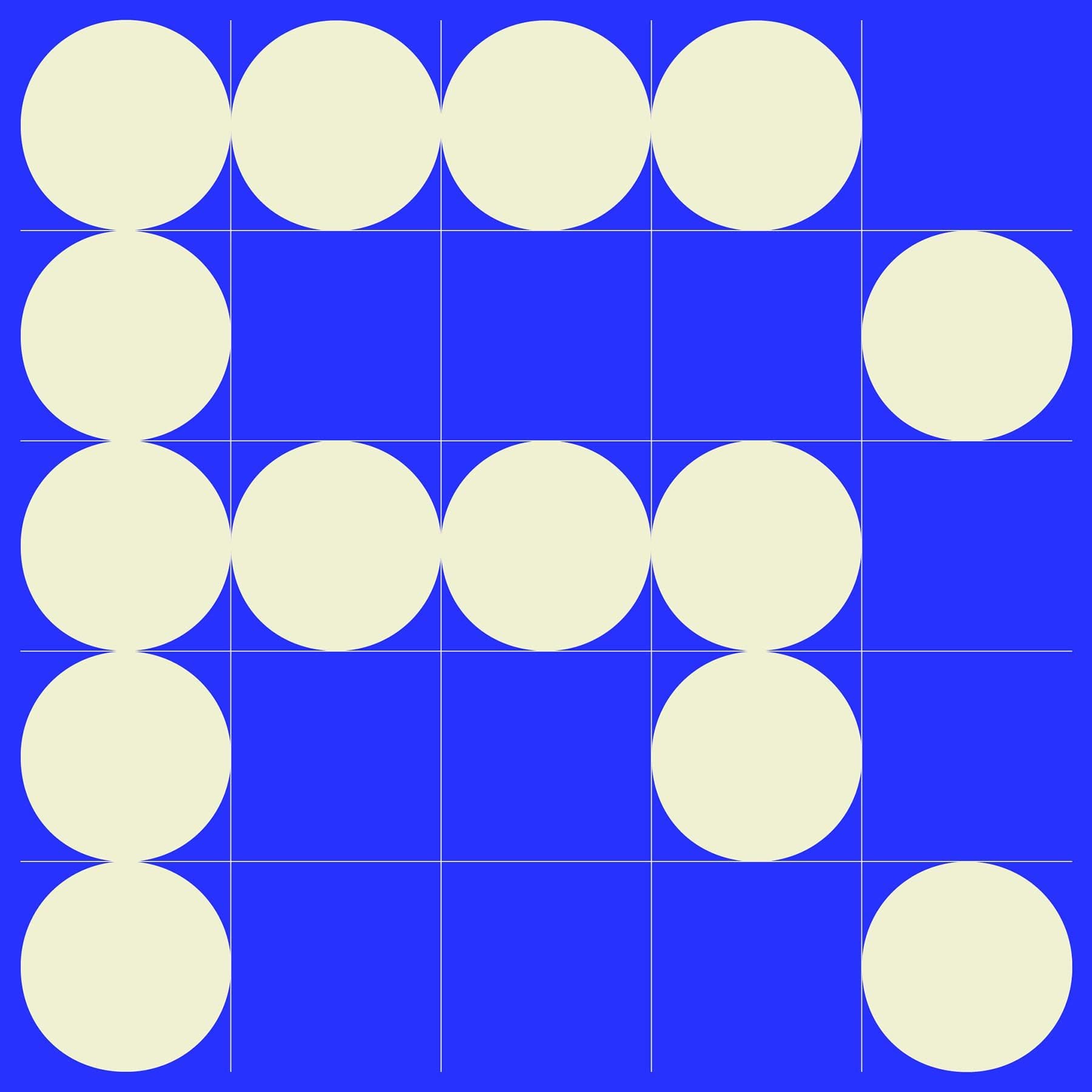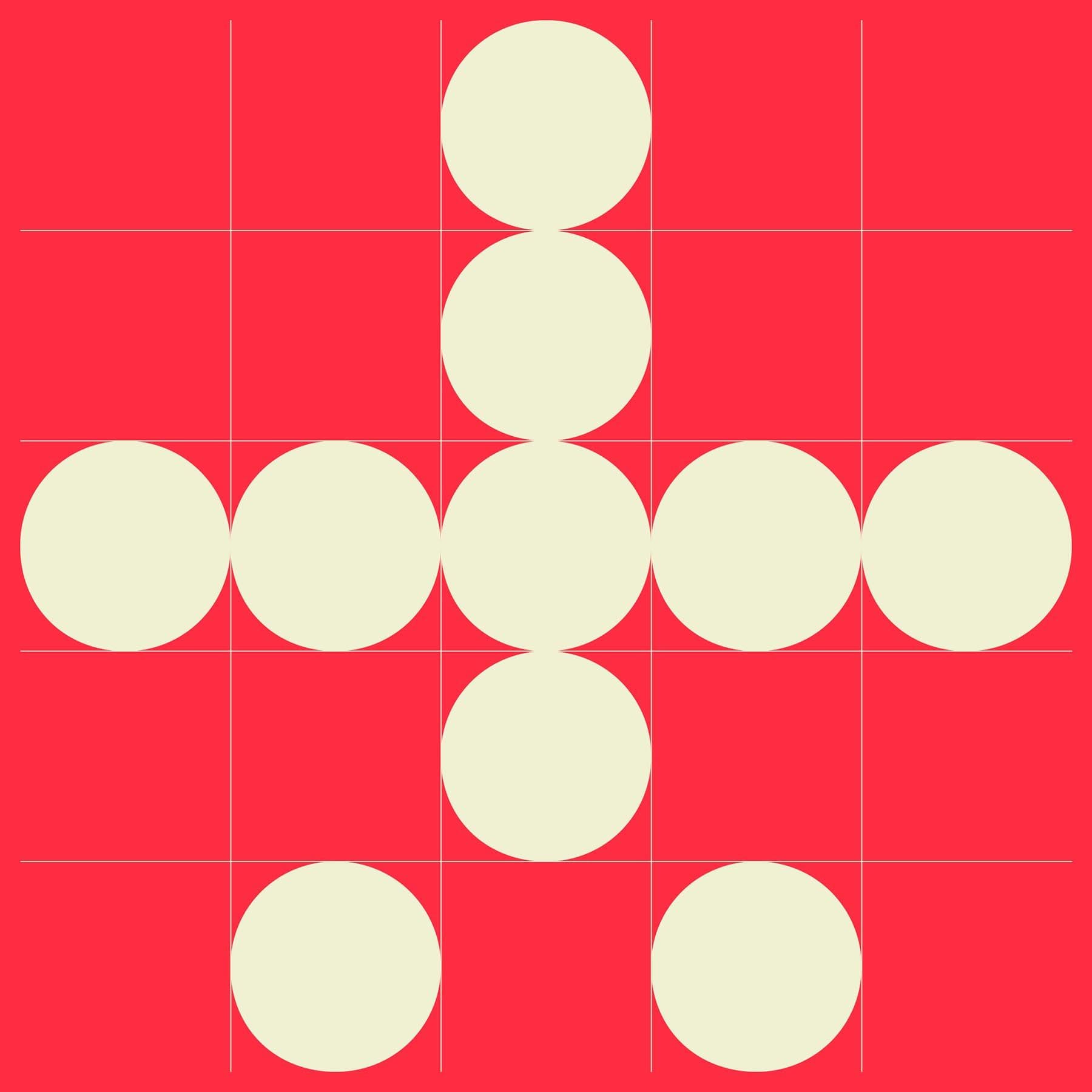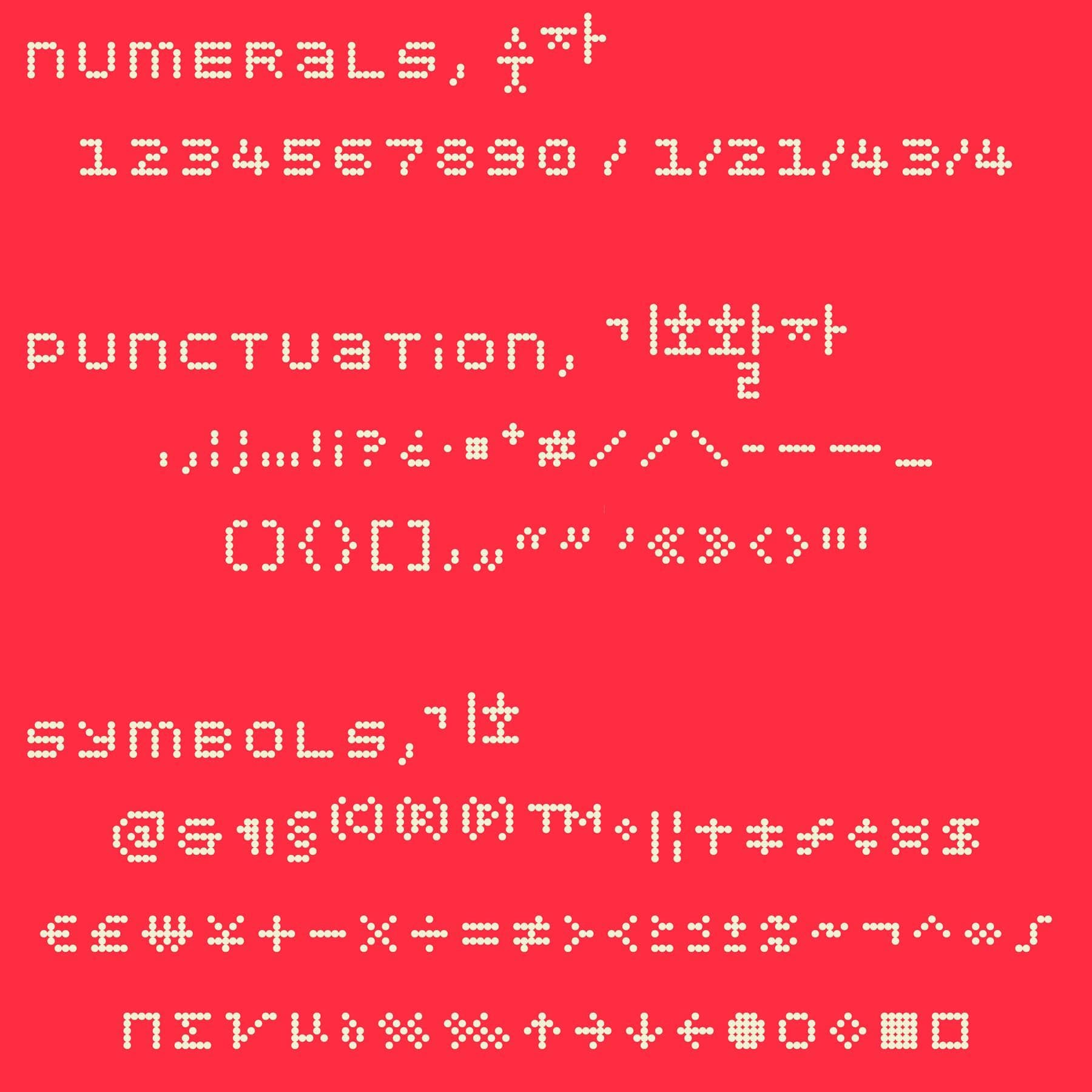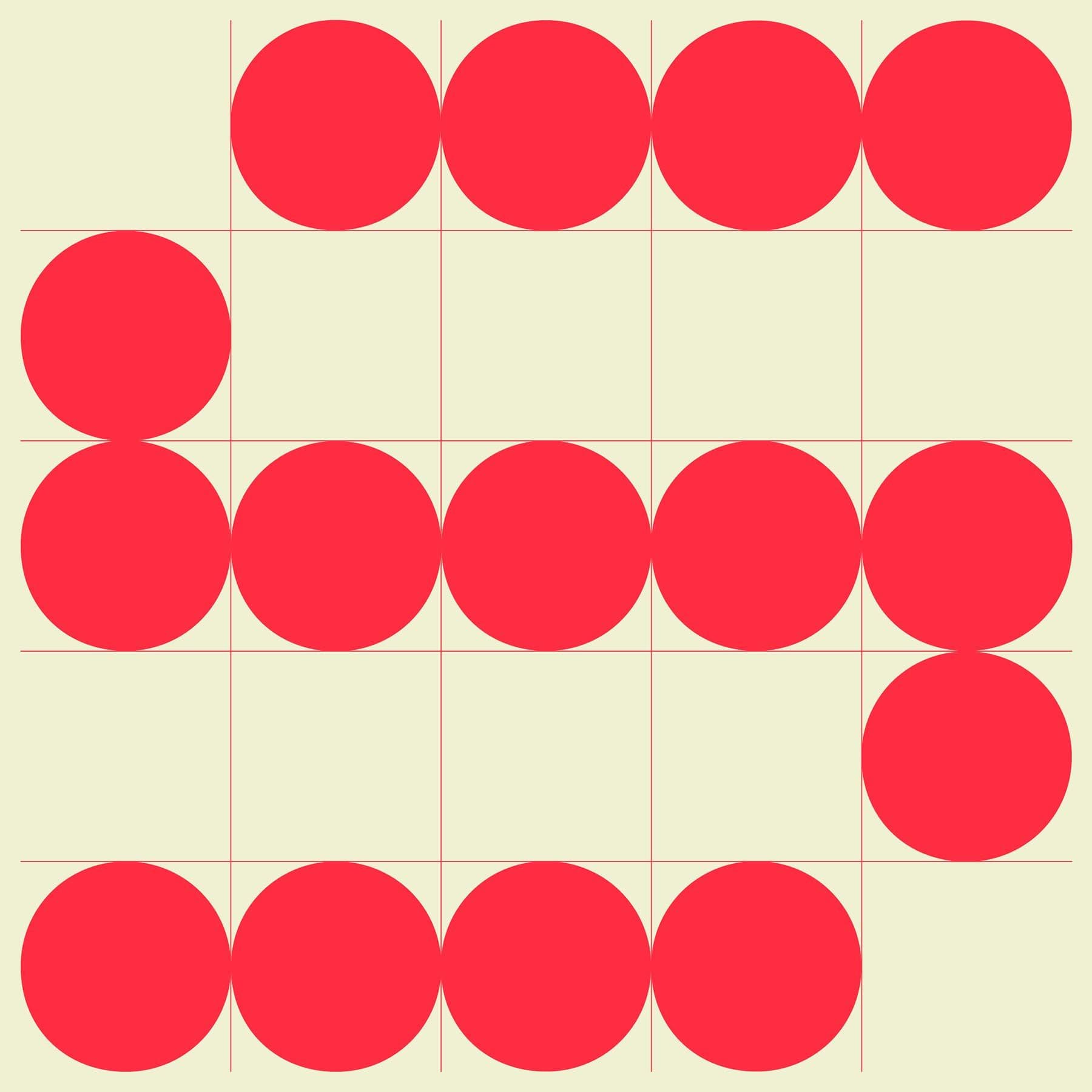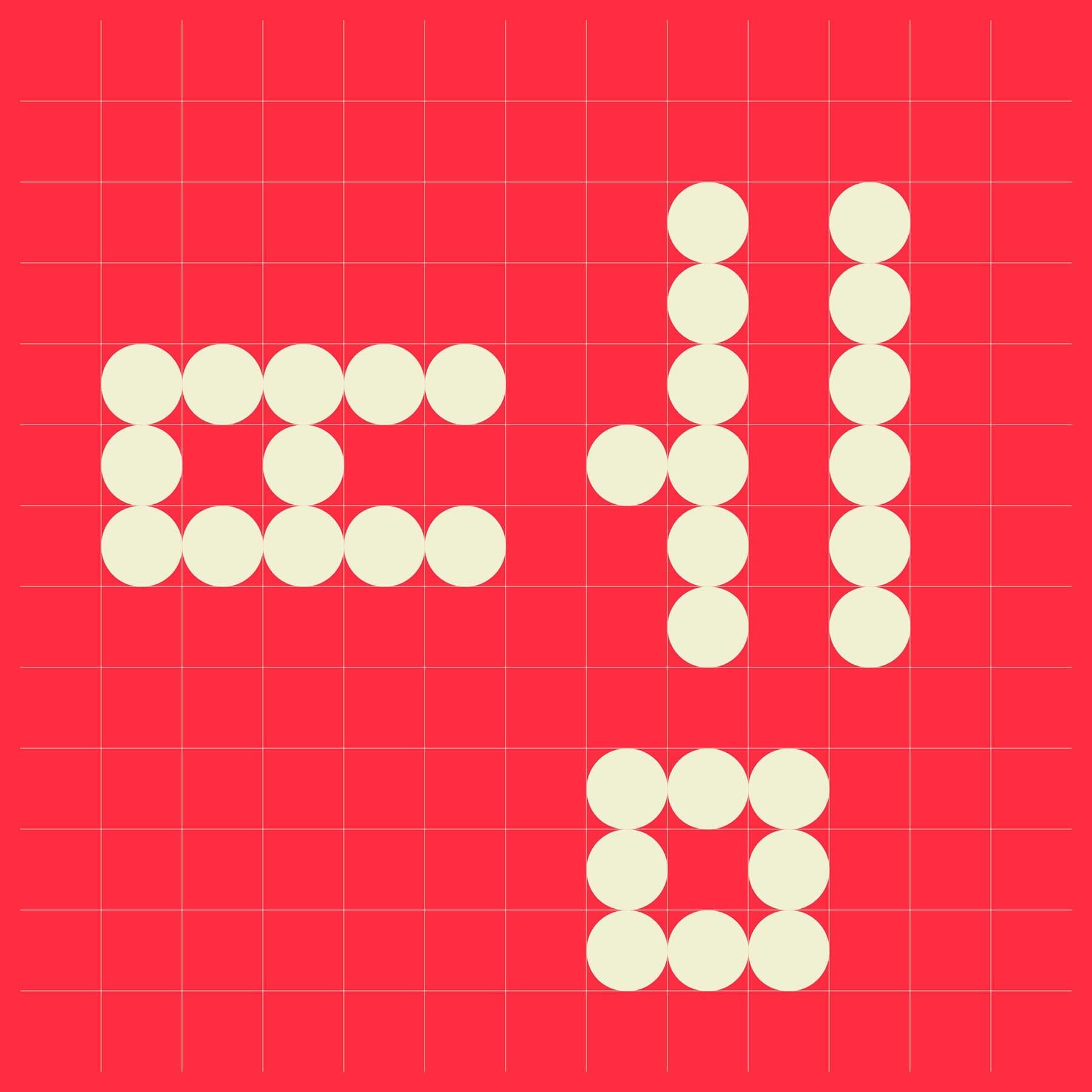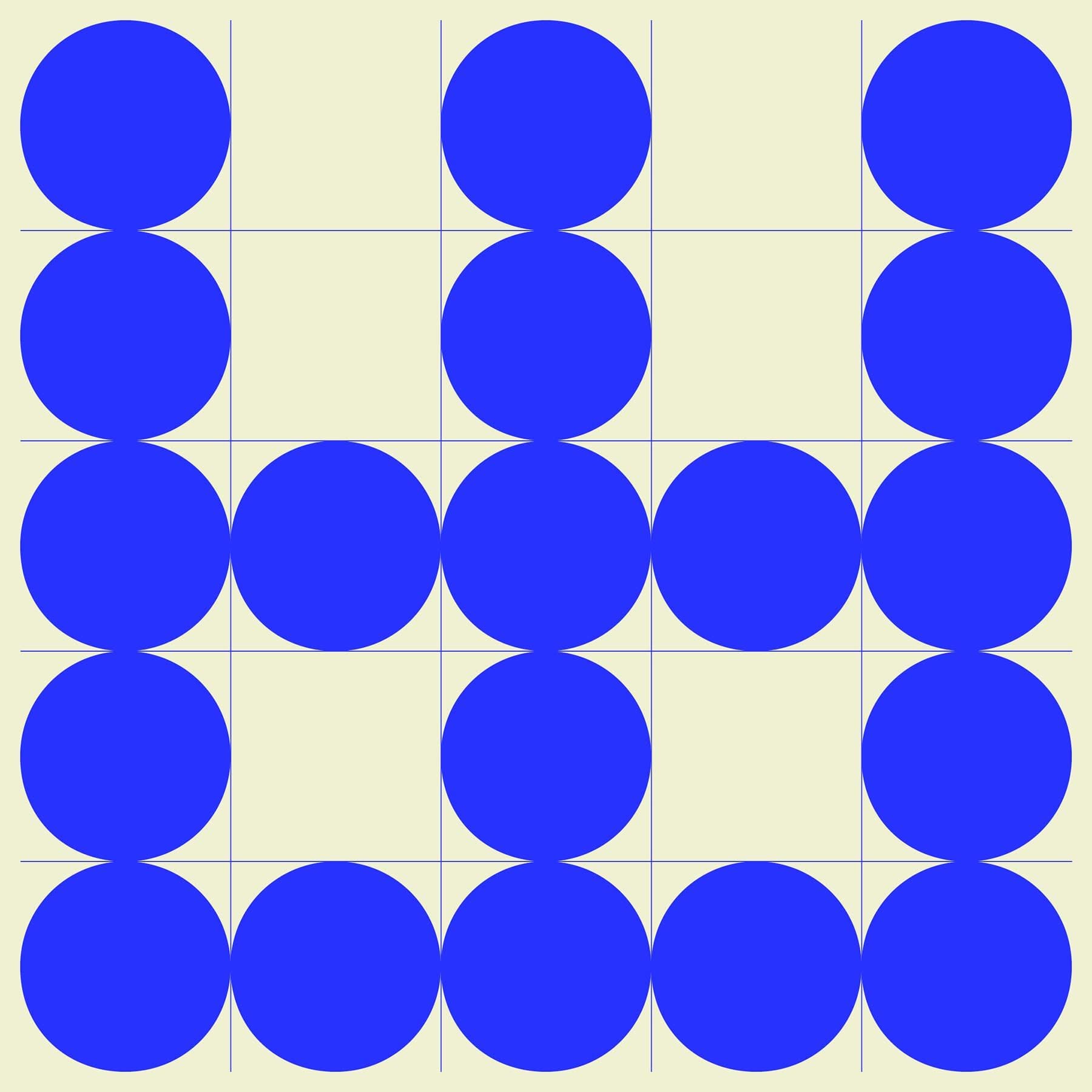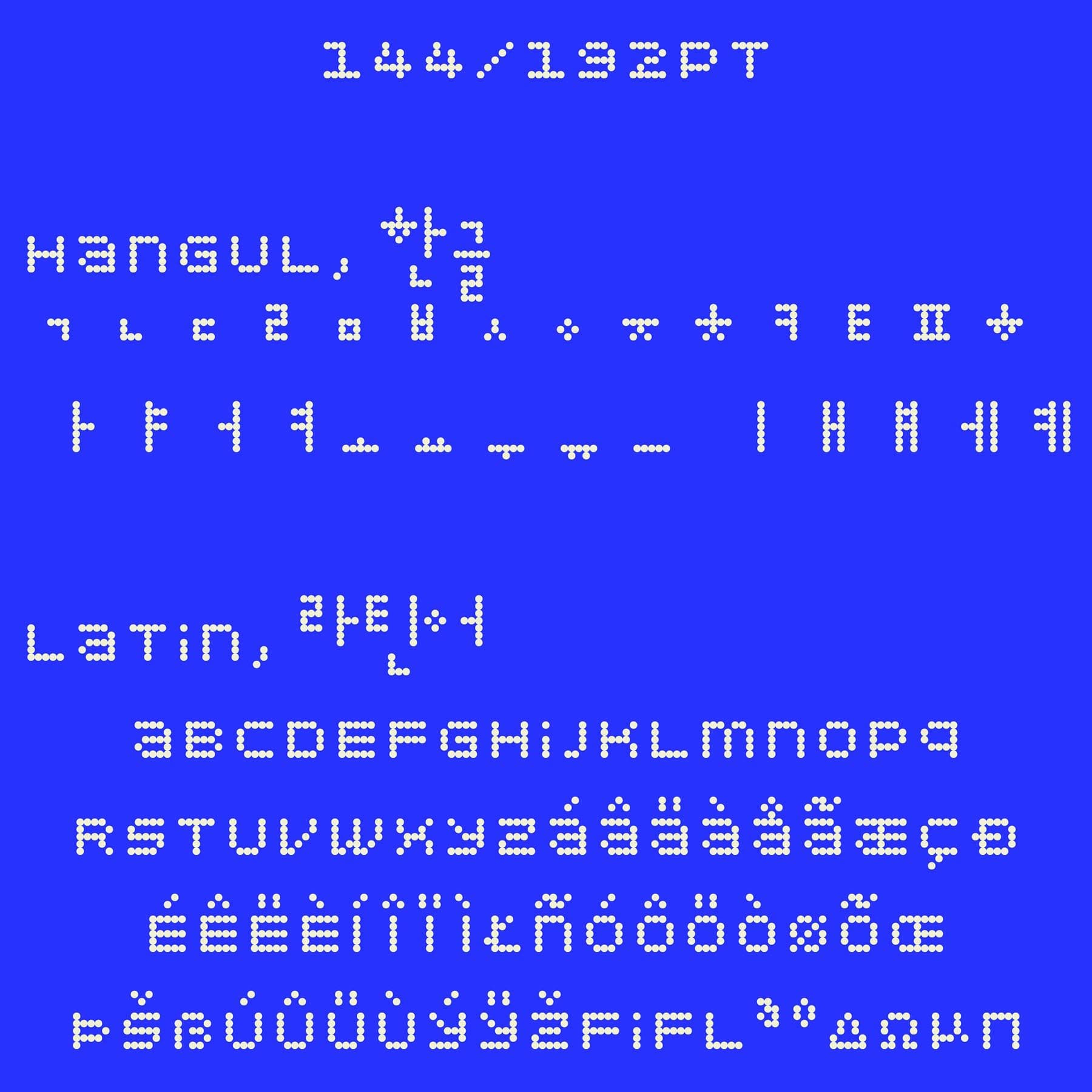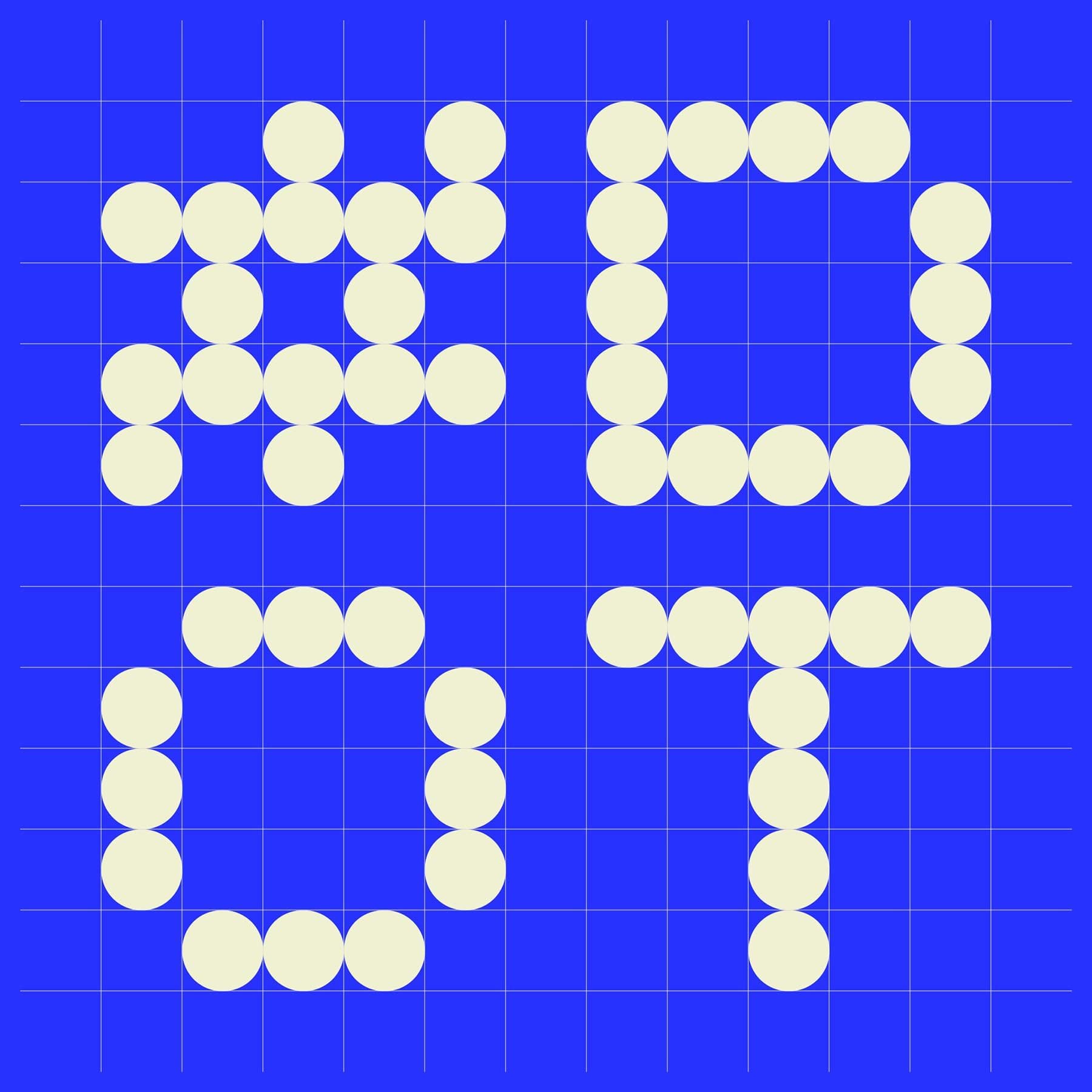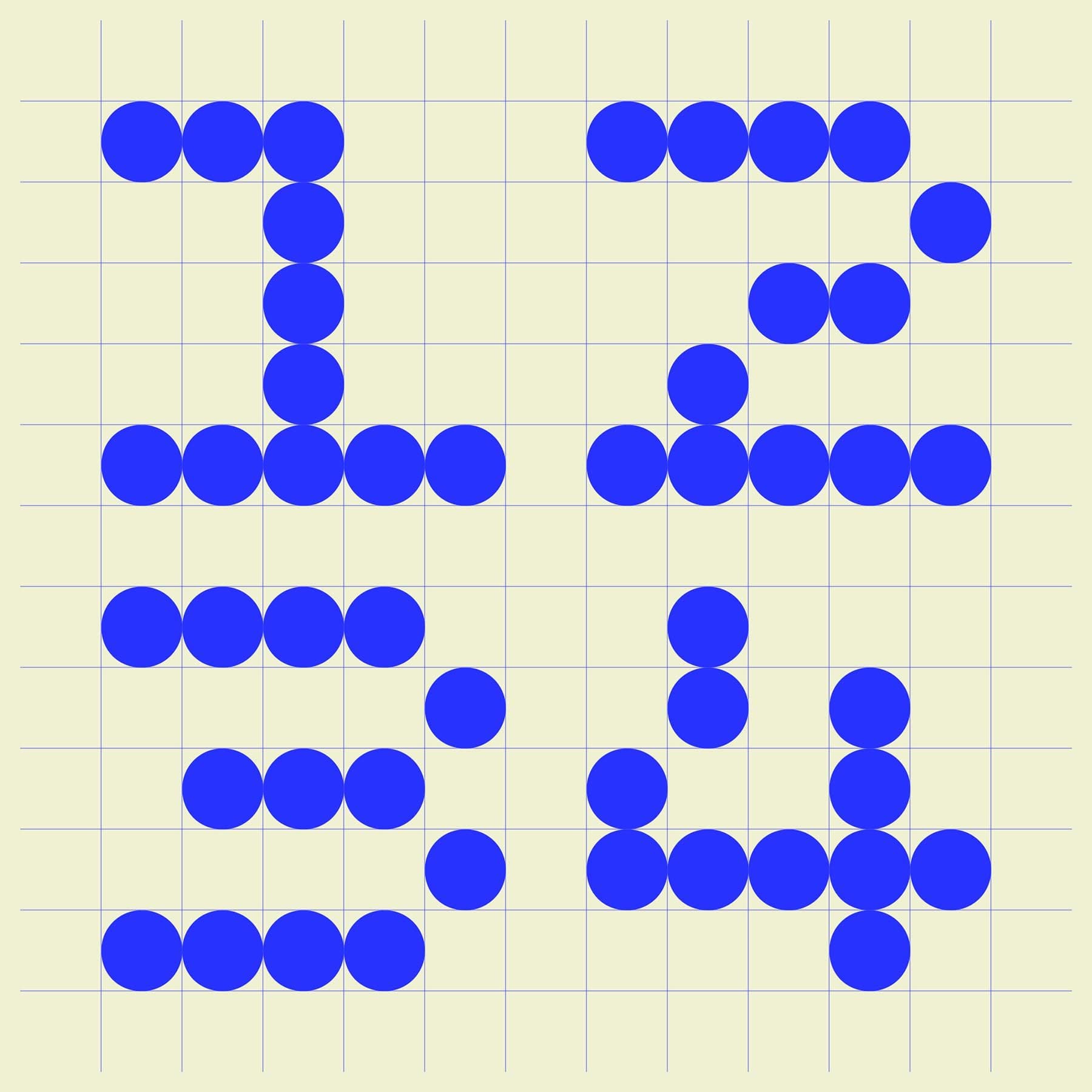
The AG Typography Institute invited us to take part in the a-Project, a reimagining of the iconic 1985 deconstructed Hangeul font, AG AhnSangSoo, designed by Ahn Sang-Soo. The result is AG Unidot. Starting with its name, this typeface is inspired by the universality of dots to create a common style. It recalls retro digital imagery: lettering produced by dot matrix printers, LED signs and early computer graphics. The result is a typeface with a technical yet playful vibe. Unidot uses a modular dot-based system to maintain a cohesive appearance in both Latin and Hangeul scripts that lasts even when they’re together.